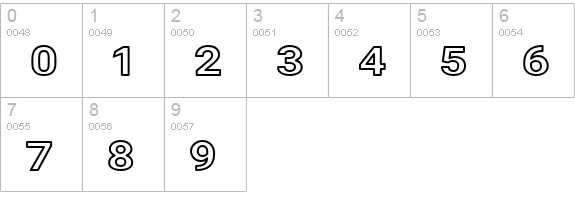
Asimov Extra Wide Outline Font Details
Asimov Extra Wide Outline is a distinctive, extended-width variant in the Asimov typeface family \xE2\x80\x94 well suited to design and typography projects.
Introducing Asimov Extra Wide Outline, a stunning typeface that is sure to captivate and inspire. This font embodies a perfect balance between modern sleekness and timeless elegance. With its bold and commanding presence, Asimov Extra Wide Outline is designed to make a lasting impression in any design project. Crafted with precision and attention to detail, this font offers a unique combination of refined lines and geometric shapes. Its extra wide outline adds a touch of sophistication, making it perfect for headlines, titles, logos, and branding materials. Whether you're creating a striking poster, a sleek website, or an eye-catching advertisement, Asimov Extra Wide Outline will elevate your design to new heights. Not only does Asimov Extra Wide Outline possess aesthetic appeal, but it also offers practicality and versatility. Its legibility remains intact across various sizes and platforms, ensuring seamless readability across both print and digital media. From large displays to small captions, this font adapts effortlessly, making it an essential tool for designers seeking versatility in their creative endeavors. What makes Asimov Extra Wide Outline even more remarkable is that it is available for free. Yes, that's right! This exceptional font can be freely downloaded at FontsMarket.com. Now, you can enhance your designs without breaking the bank, allowing your creativity to flourish without any limitations. So, why wait? Experience the power and beauty of Asimov Extra Wide Outline today. Download it for free at FontsMarket.com and unlock a world of endless design possibilities. Let your imagination take flight as you explore the boundless potential of this remarkable typeface.